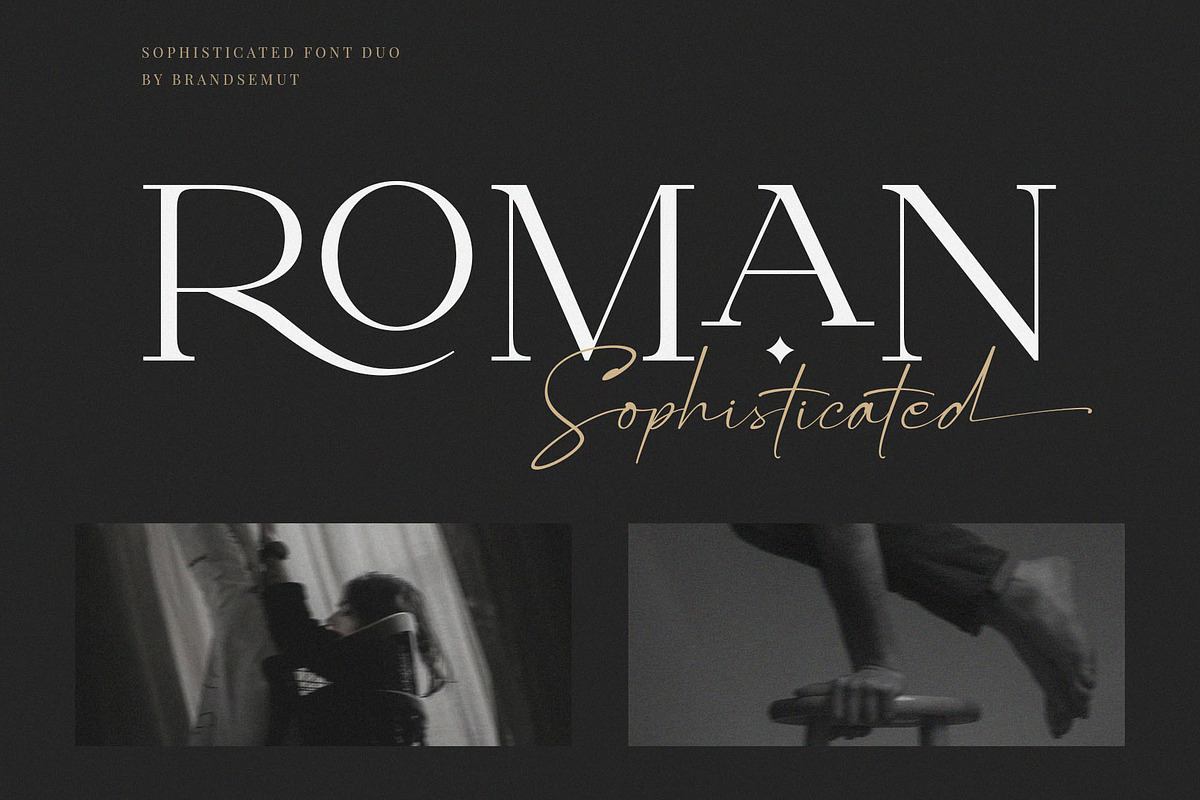
Roman Sophisticated Font Duo Free Download
Roman Sophisticated Font Duo Free Download is a luxurious and elegant font pairing that combines a signature-style script with a refined serif typeface. This harmonious duo is perfect for creating sophisticated branding, stylish invitations, upscale packaging, and elegant editorial designs. The script font adds a personal, handwritten touch, while the serif provides structure and professionalism, making them a versatile combination for various design projects.
Designed with attention to detail, both fonts offer a range of ligatures and stylistic alternates, allowing for customization and enhancing the uniqueness of your typography. Whether you're crafting a high-end logo or designing wedding stationery, Roman Sophisticated brings a touch of class and refinement to your work.